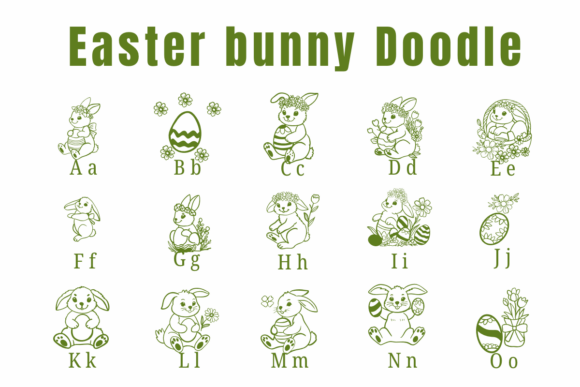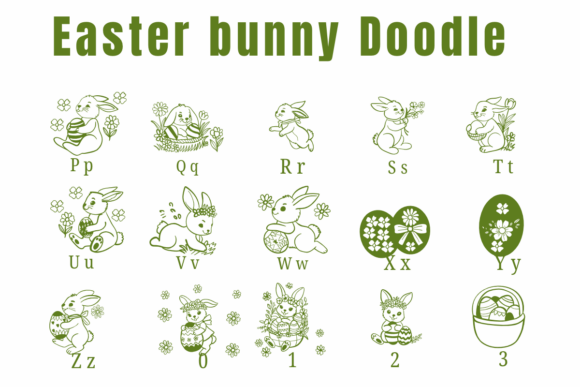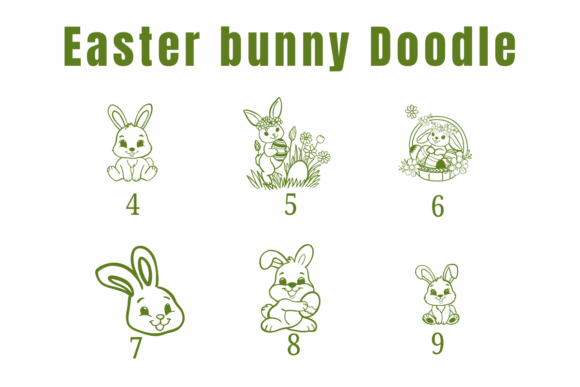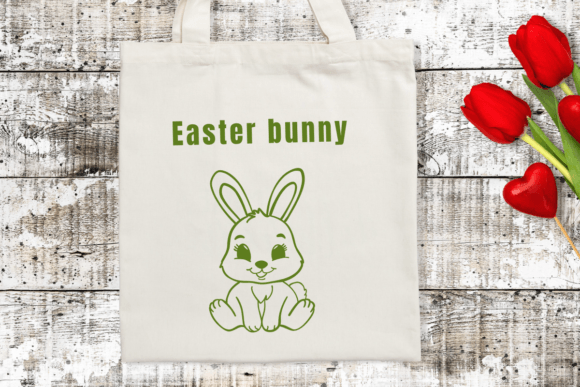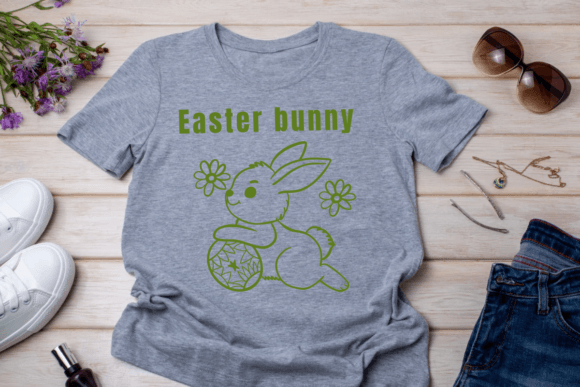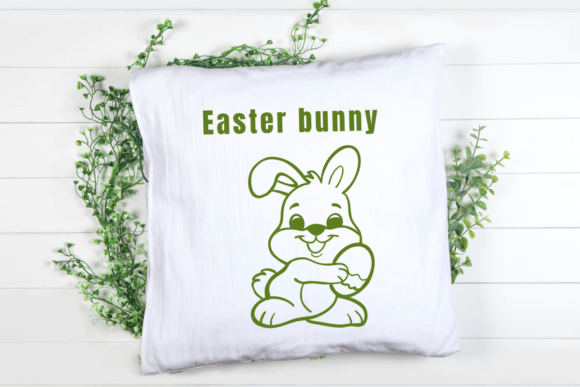
Easter Bunny Doodle Font: A Cute and Creative Addition to Your Design Projects
Are you looking for a fun and unique font to add a personal touch to your creative projects? Look no further than the Easter Bunny Doodle Font! This adorable dingbats font is perfect for designers, crafters, and DIY enthusiasts who want to add a cute and playful theme to their work.
What is Easter Bunny Doodle Font?
Easter Bunny Doodle Font is a dingbats font that features a collection of cute and colorful Easter-themed illustrations, including Easter bunnies, eggs, flowers, and more. This font is designed to be used for a variety of creative projects, such as wedding invitations, DIY crafts, decorations, logos, and many other design ideas.
Creative Project Ideas
Easter Bunny Doodle Font is perfect for a wide range of creative projects, including:
- Wedding invitations: Add a cute and playful touch to your wedding invitations with Easter Bunny Doodle Font.
- DIY crafts: Use the font to create custom labels, cards, and decorations for your DIY crafts.
- Decorations: Create custom signs, banners, and decorations for Easter or spring-themed parties.
- Logos: Use the font to create a custom logo for your business or brand.
- Social media graphics: Add a fun and playful touch to your social media graphics with Easter Bunny Doodle Font.
Benefits of Using Easter Bunny Doodle Font
There are many benefits to using Easter Bunny Doodle Font in your design projects. Here are a few:
- Cute and playful theme: The font features a cute and playful theme that is perfect for Easter or spring-themed projects.
- Versatile: The font can be used for a wide range of creative projects, from wedding invitations to DIY crafts.
- Customizable: You can use the font to create custom illustrations and designs that match your brand or theme.
Here are a few tips and tricks for using Easter Bunny Doodle Font:
- Experiment with different colors: The font looks great in a variety of colors, so don’t be afraid to experiment and find the perfect color scheme for your project.
- Mix and match illustrations: The font includes a wide range of illustrations, so feel free to mix and match them to create a unique design.
- Use with other fonts: Easter Bunny Doodle Font looks great when paired with other fonts, so try combining it with your favorite font for a unique look.
Easter Bunny Doodle Font is a fun and creative addition to any design project. With its cute and playful theme, easy-to-use design, and versatile illustrations, this font is perfect for designers, crafters, and DIY enthusiasts. Whether you’re creating wedding invitations, DIY crafts, or social media graphics, Easter Bunny Doodle Font is sure to add a personal touch to your work.